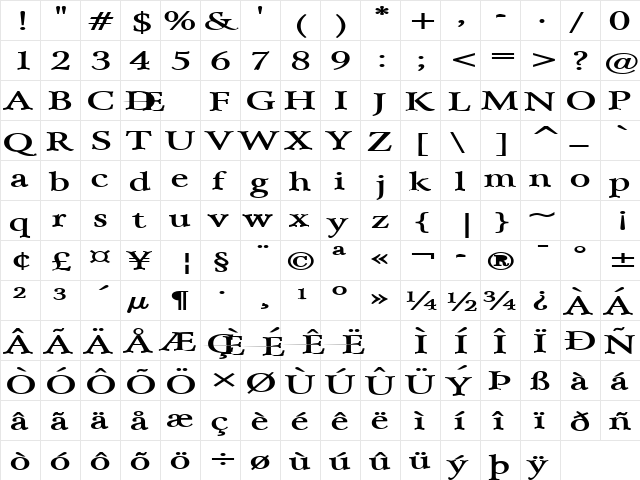
Array Extended Bold
Design Context for Array Extended Typeface
Array Extended takes a measured approach to typography — its balanced proportions and neutral character make it a reliable workhorse for both digital and print work. Its bold stroke weight gives it real presence on the page.